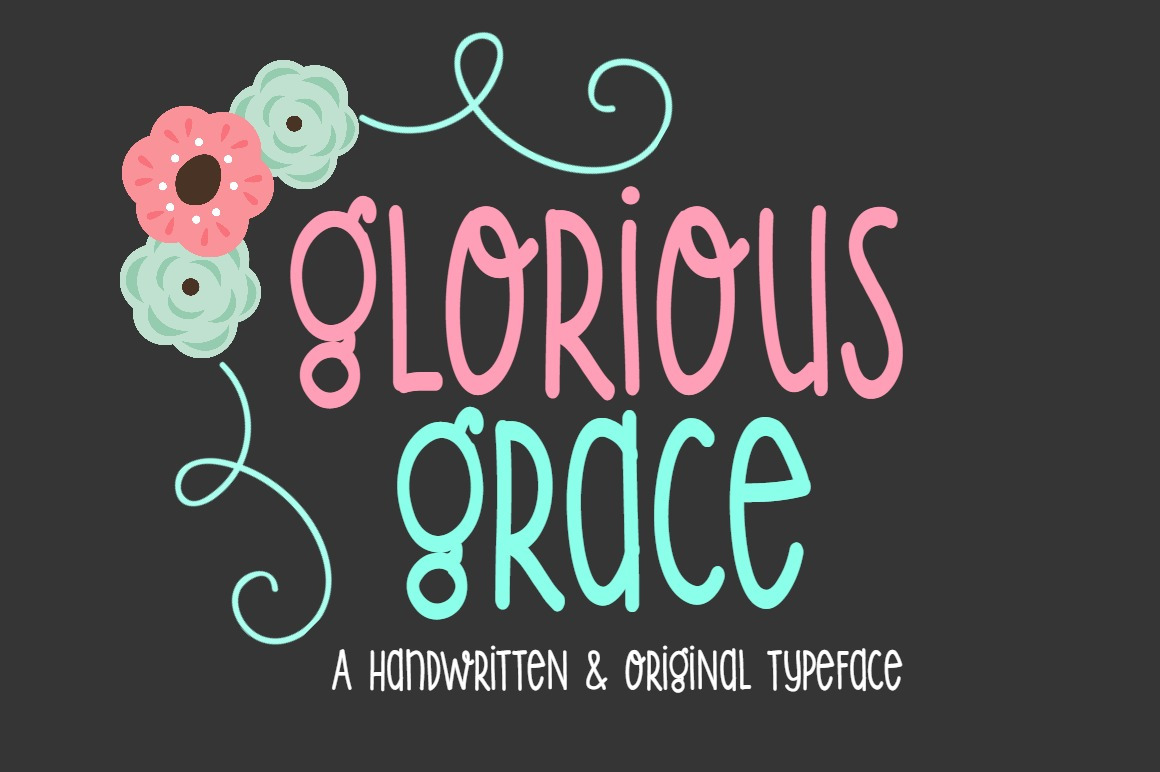
Glorious Grace-Handwritten Font
"Glorious Grace" is a brand new handwritten font! It has a sweet youthful vibe- making it a great design choice for children's apparel or decor, or anything that calls for a youthful and quirky font!